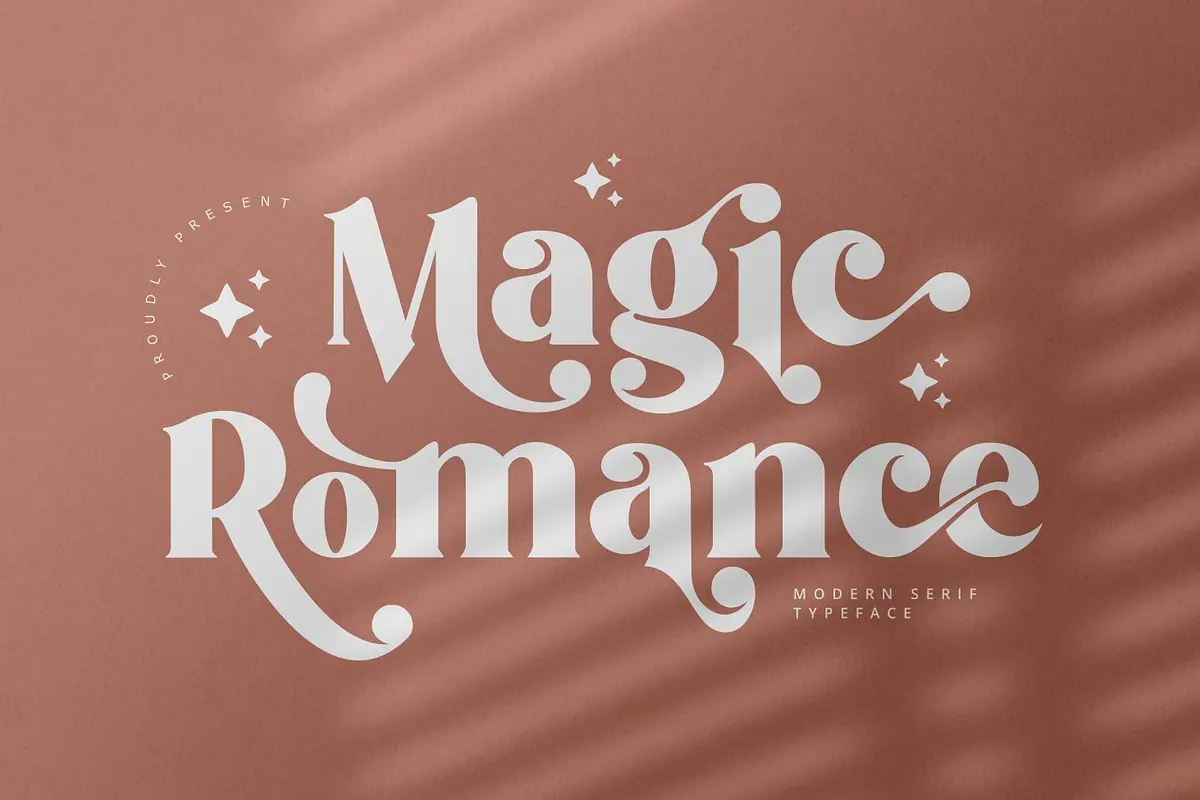
Magic Romance - Modern Serif Font Free Download is a stylish and elegant serif typeface designed to add a touch of sophistication and charm to your designs. With its sharp lines, delicate curves, and refined details, this font is perfect for high-end branding, editorial layouts, invitations, logos, and any project that requires a modern yet timeless aesthetic.
Magic Romance combines classic serif elements with a contemporary feel, offering both readability and visual appeal. It’s ideal for designs that need to evoke luxury, romance, and elegance, making it a perfect choice for wedding invitations, boutique branding, or upscale marketing materials.
Add elegance and style to your designs with the graceful beauty of Magic Romance!